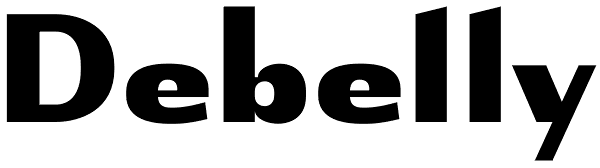
Debelly
Debelly is catchy fat typeface, with lovely geometric shapes. Inspired with contrast strokes, with square joins, Debelly gives an impression of retro style combined with contemporary trends. It is designed specially for packaging, posters, logotypes...